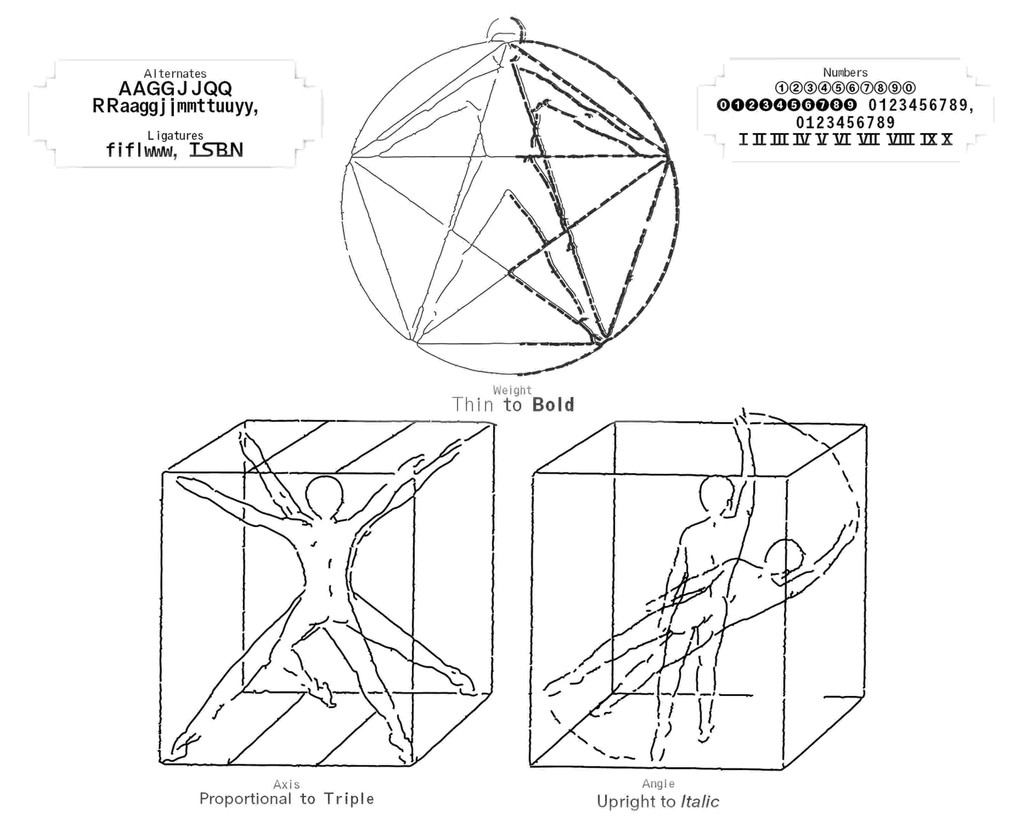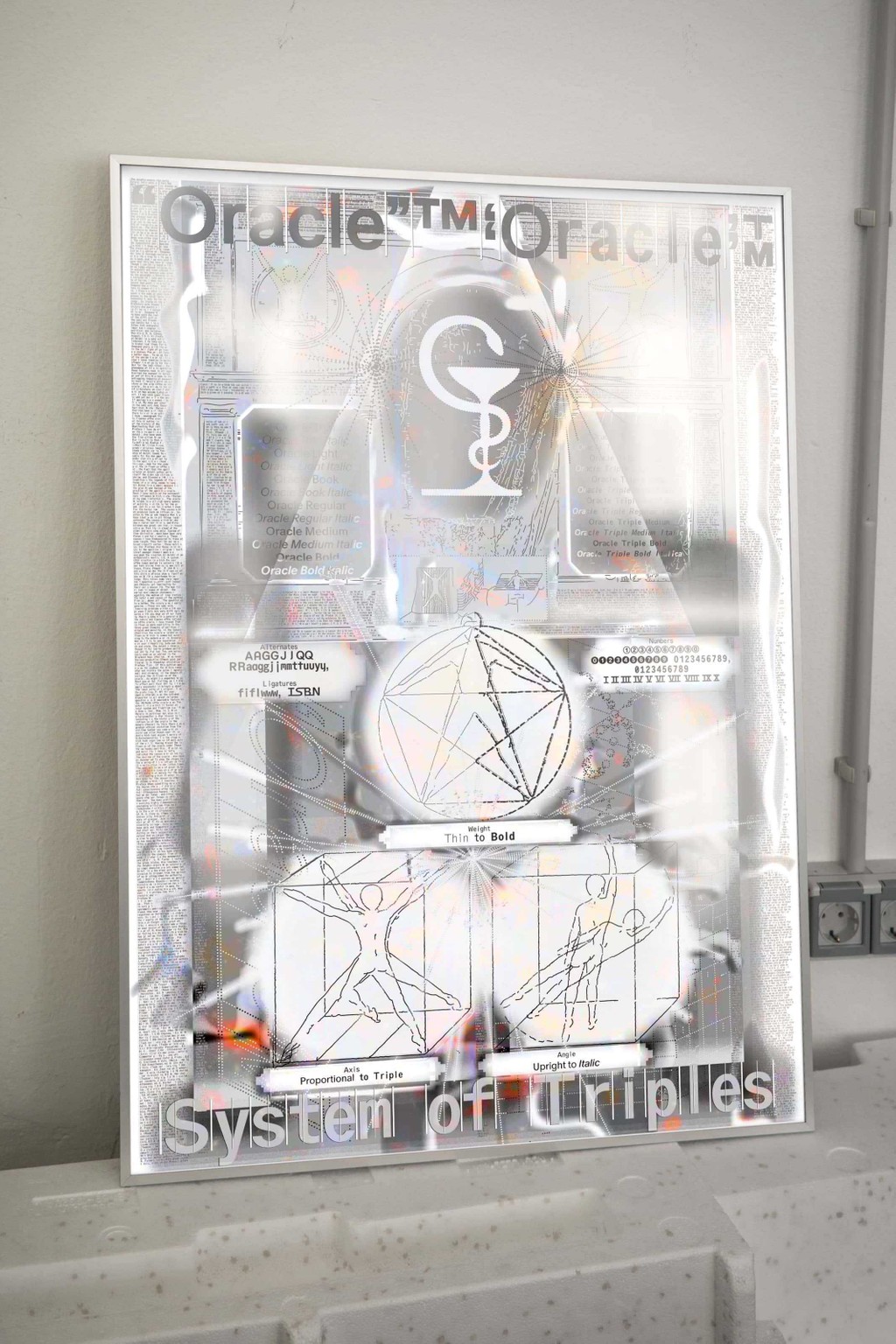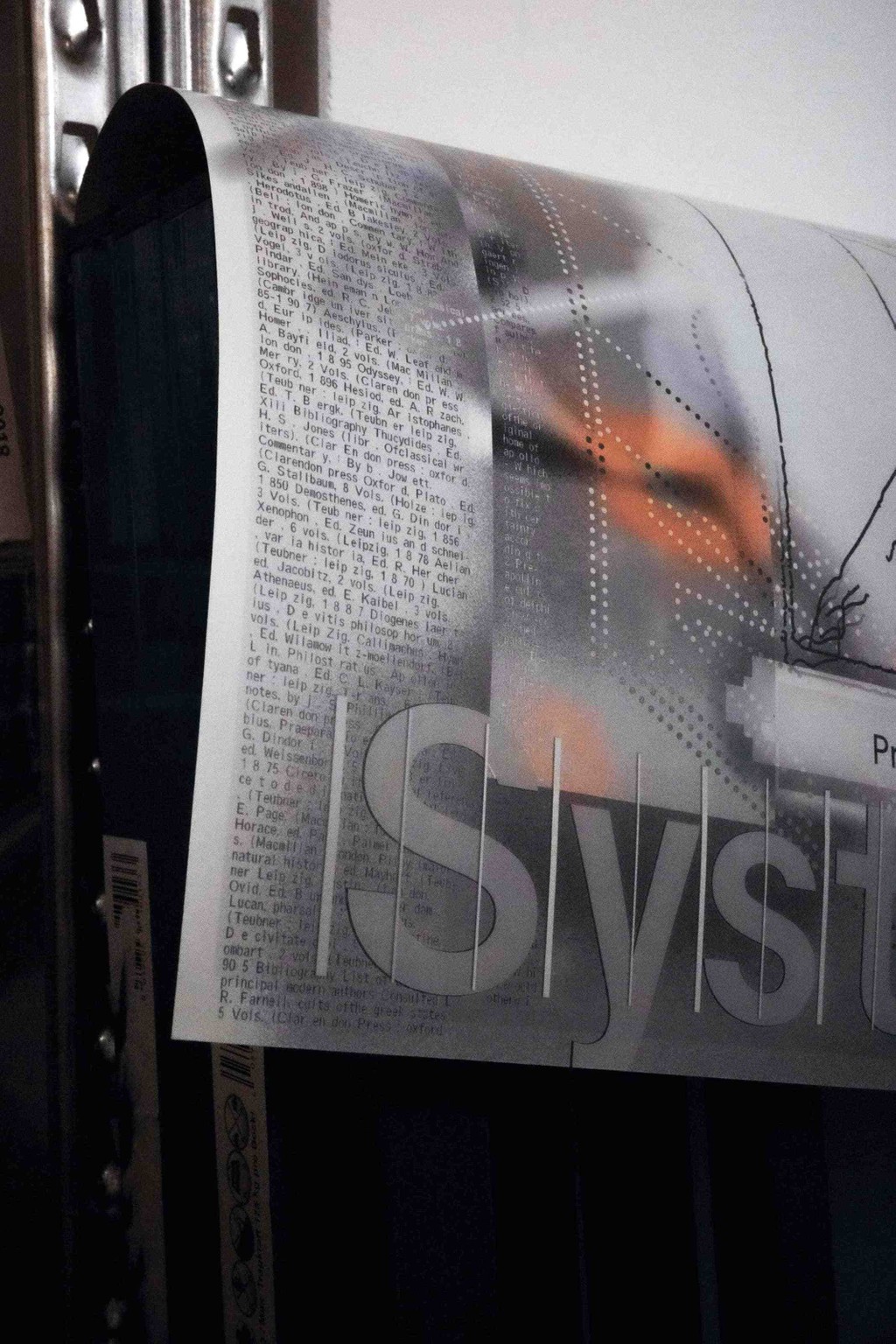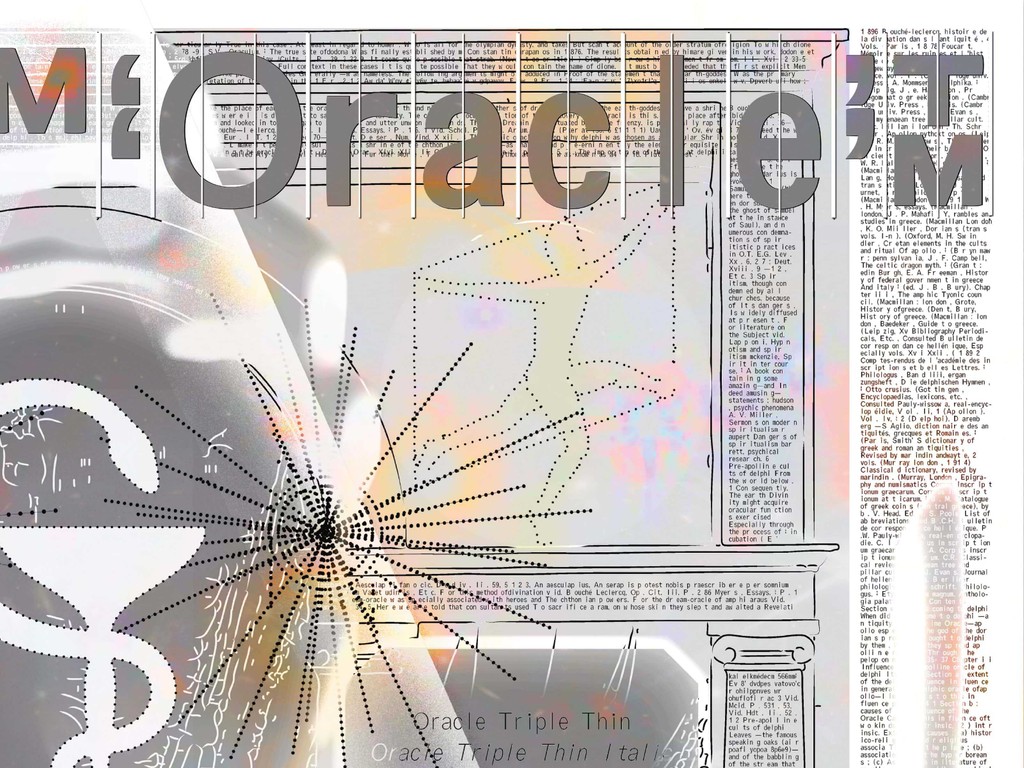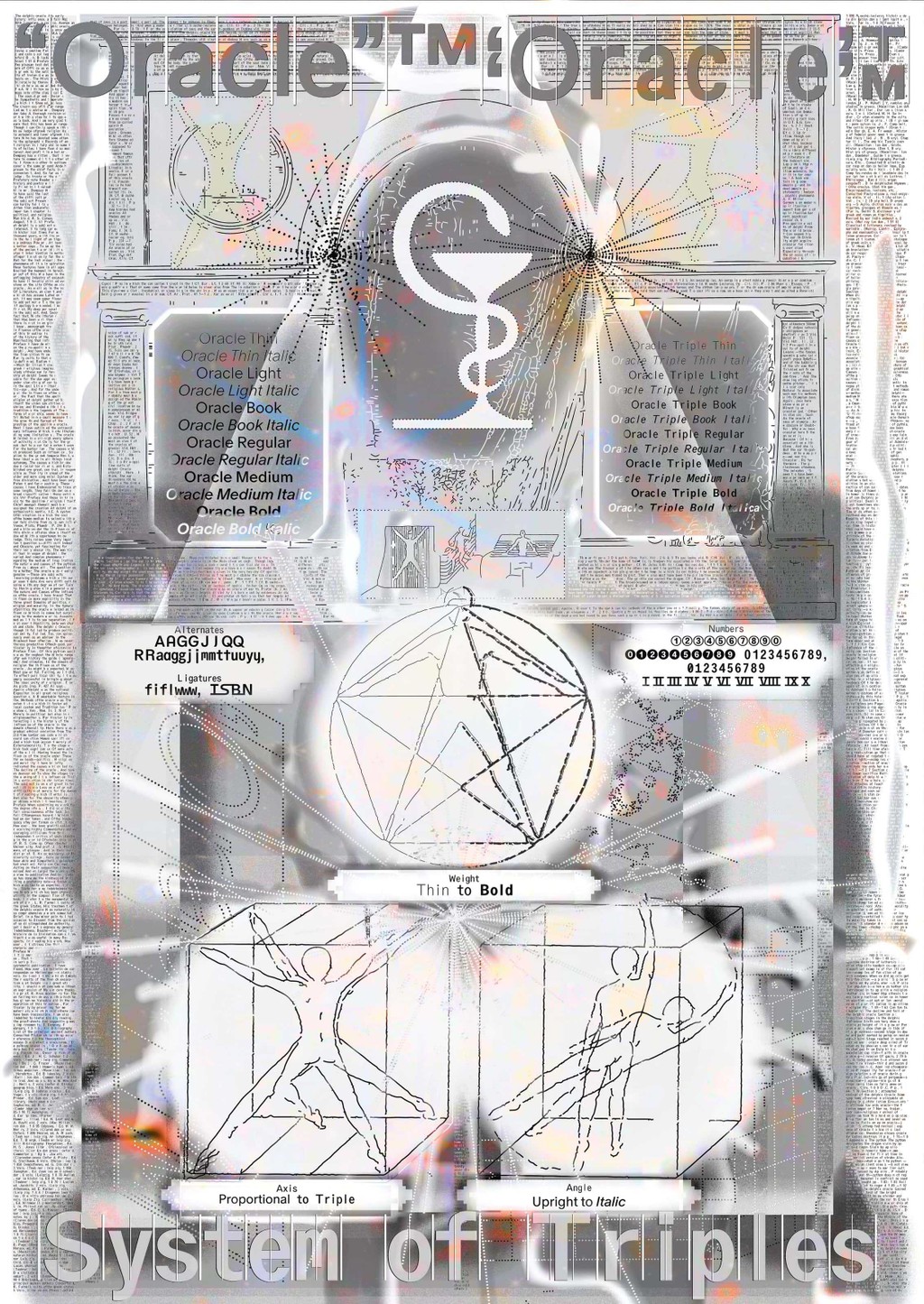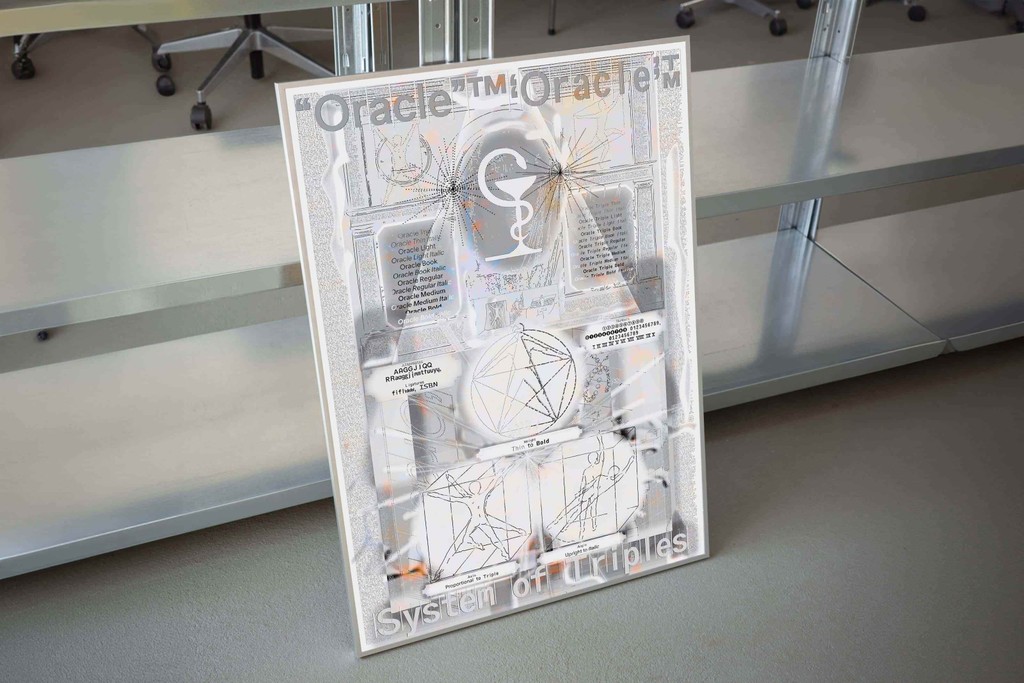
Oracle Poster
Battling an ancient system of triples.
Poster for Oracle, a double family with a Triple style that explores a strict rhythm with silly results. Channels the Ancient Greek Oracle of Delphi, who made mystical predictions by breathing in hallucinogenic fumes. A1 (59.5 x 84.1 cm), CMYK offset printed by Druckhaus Sportflieger in Berlin.
Typeface: Dinamo (Johannes Breyer)